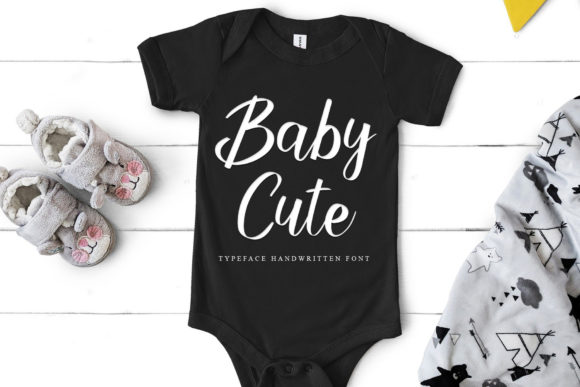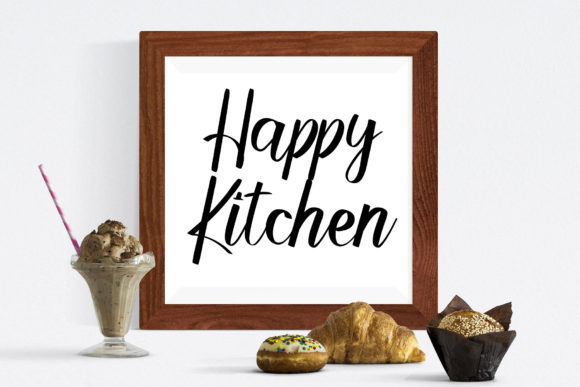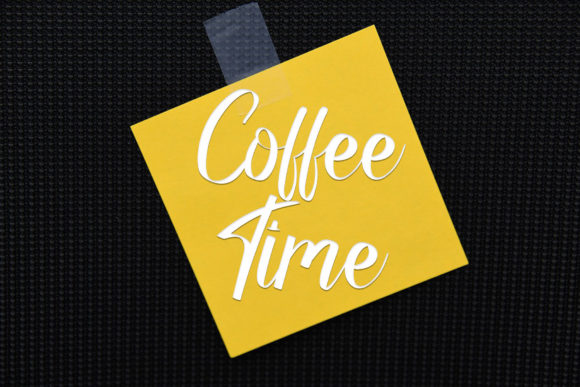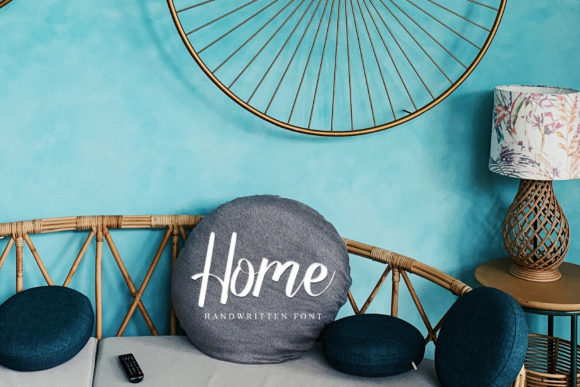
About Roller Coaster Font
Roller Coaster is a lovely script font featuring charming, playful characters that seem to dance along the baseline. Add this font to your most creative ideas, and notice how it makes them stand out!